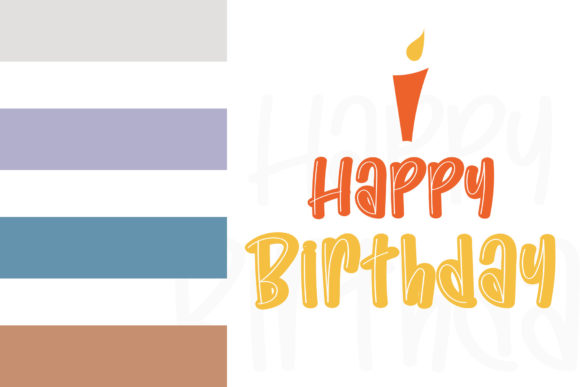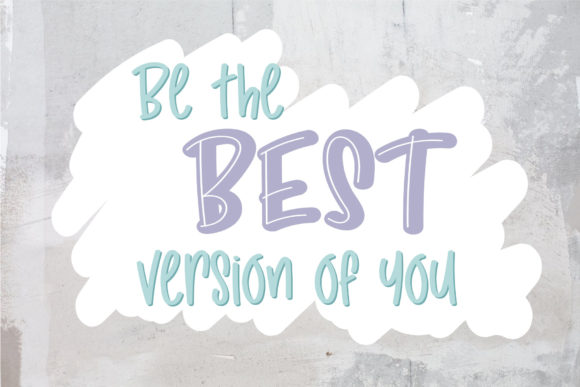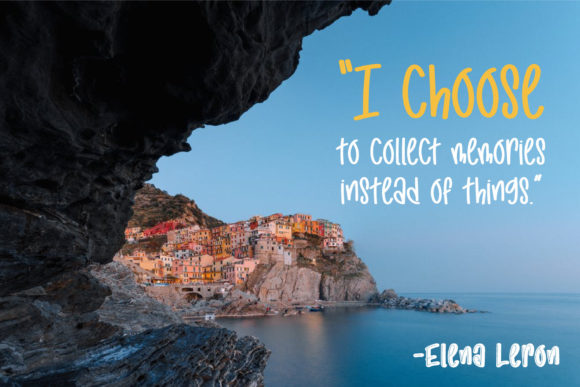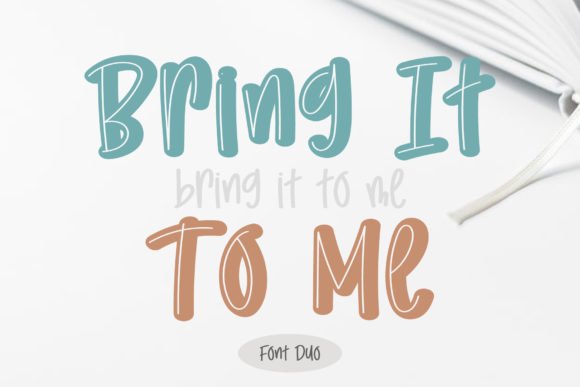
Introduction to Bring It to Me Font
Bring It to Me consists of two fonts designed to complement each other perfectly.
Together or apart, these fonts are ideal for adding a chic and cheery touch to your crafts .